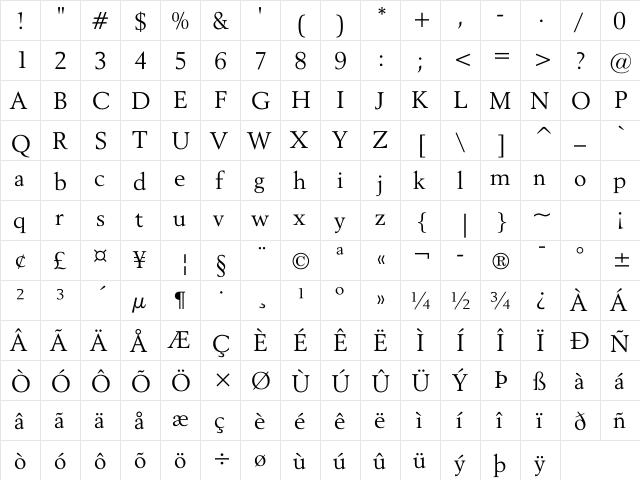
Revive 565 Regular
Design Context for Revive 565 Typeface
Revive 565 is a composed and adaptable typeface that performs quietly and consistently across a wide range of design contexts.